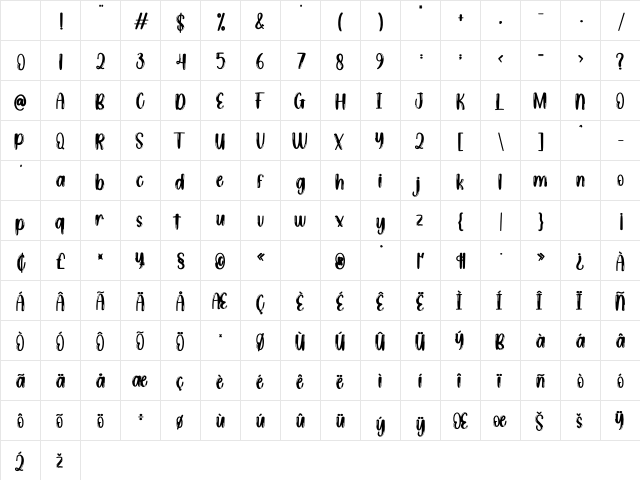
Complete Water Bubble Regular glyph index. Displaying only characters natively supported by Water Bubble Regular font.
Water Bubble has an approachable, lighthearted character - its loose, expressive forms are well-suited to children's content, casual branding, and fun-first design.
Font Pairing: Pairs well with a rounded or humanist sans for body copy, maintaining the friendly tone without relying on Water Bubble to carry extended reading.
Pro Tip: Use Water Bubble at larger display sizes where its expressive character can land. Pair with a clean, simple sans for body copy to maintain readability.